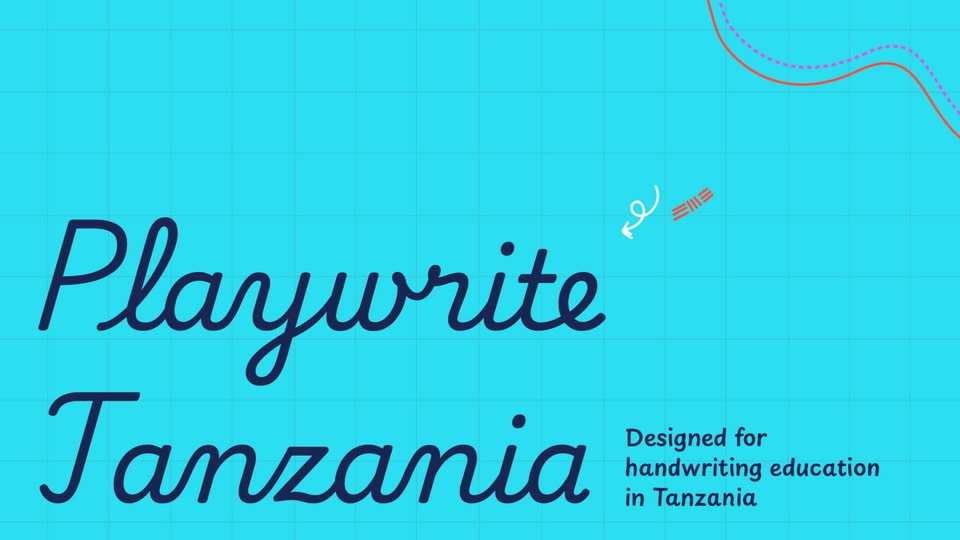
Download Playwrite Tanzania font, a typeface that allows the creation of primary school cursive fonts. This sloped continuous cursive style includes decorative capital letters.